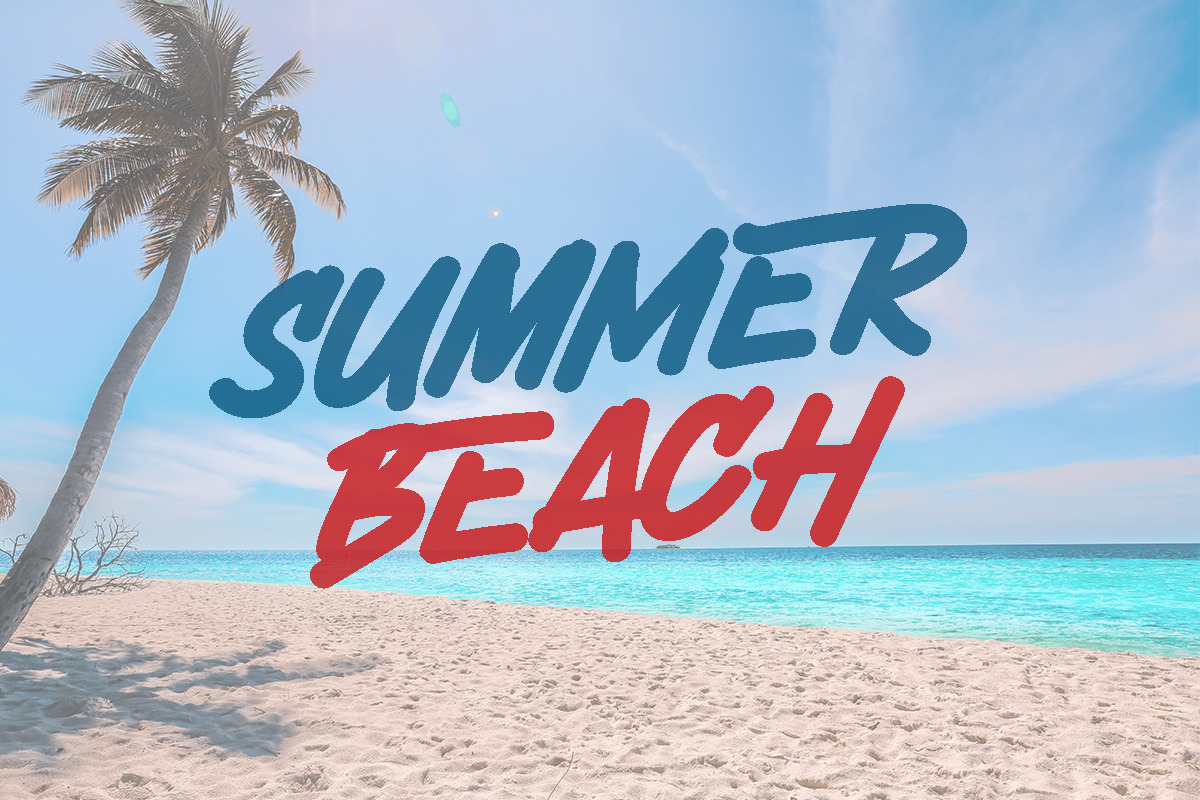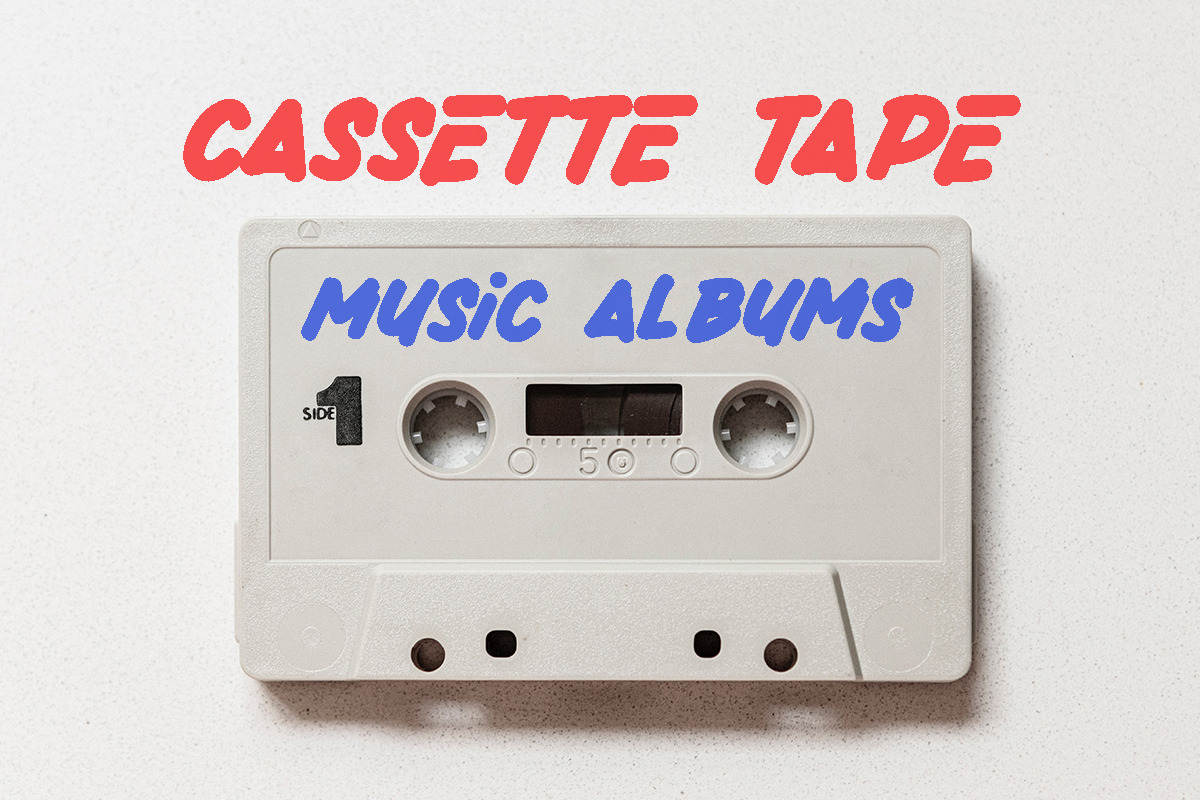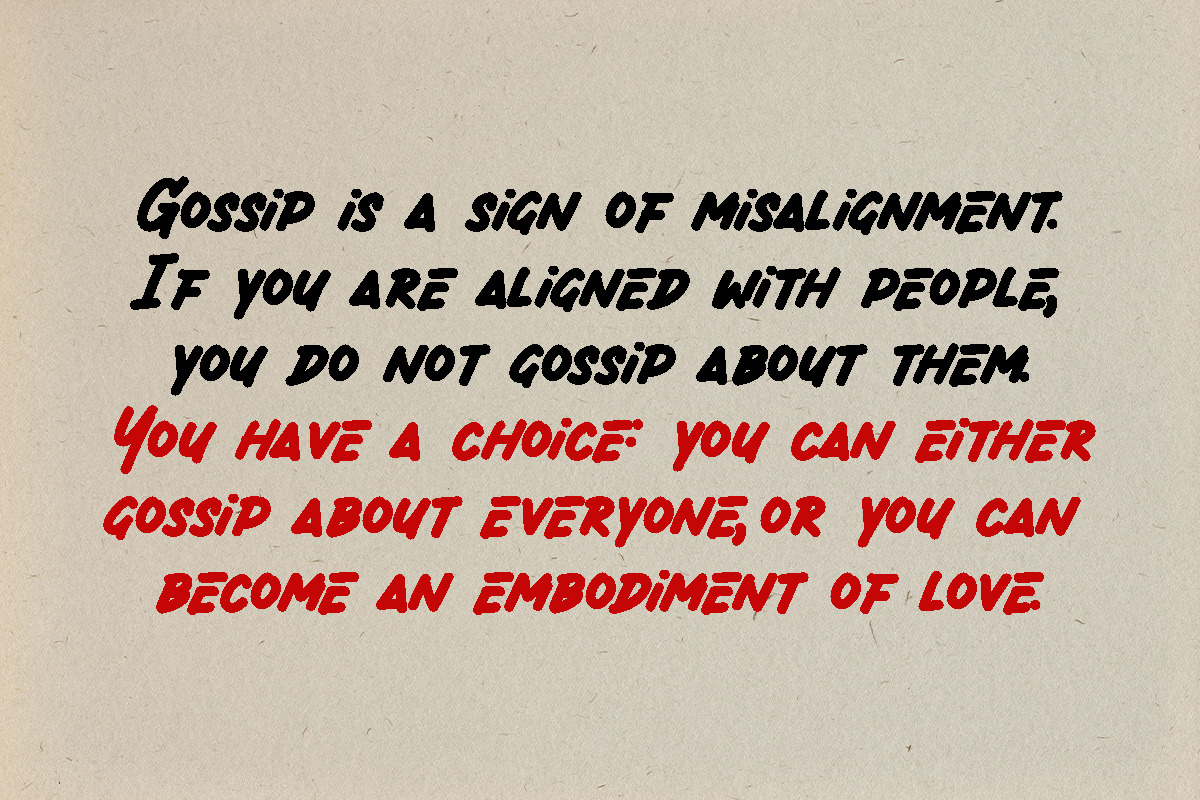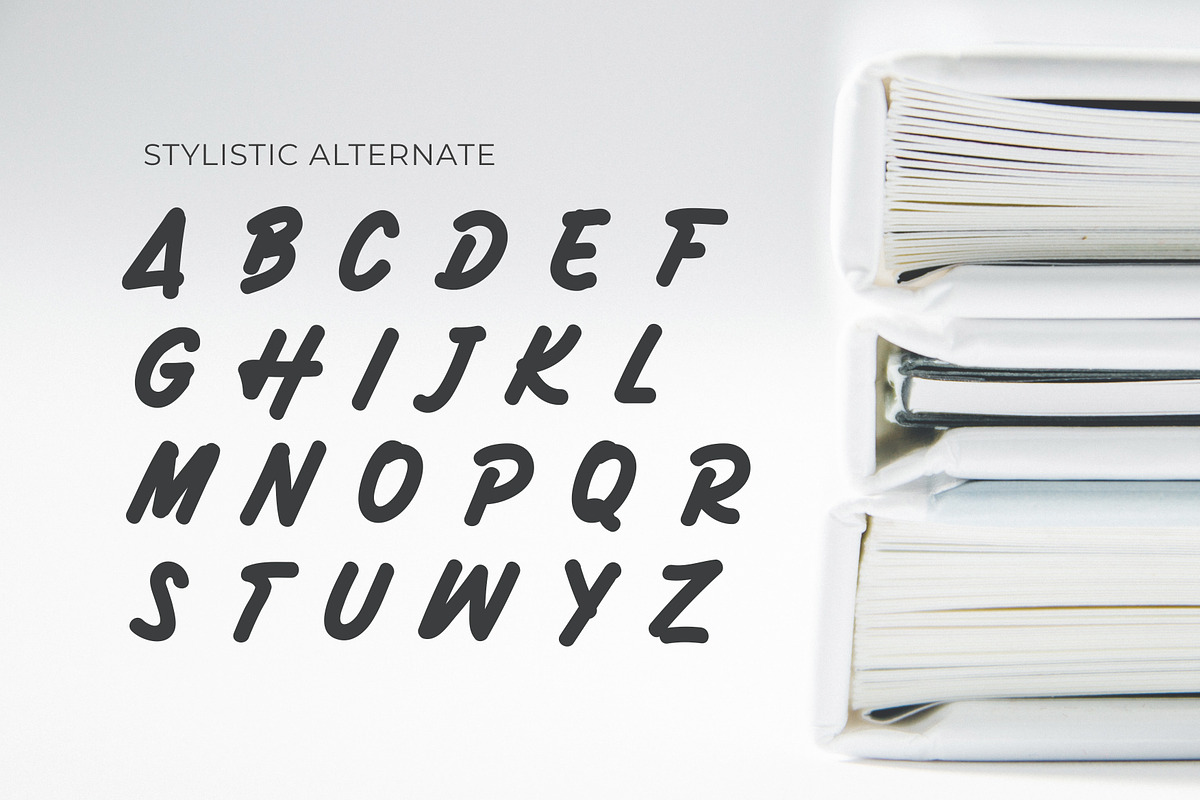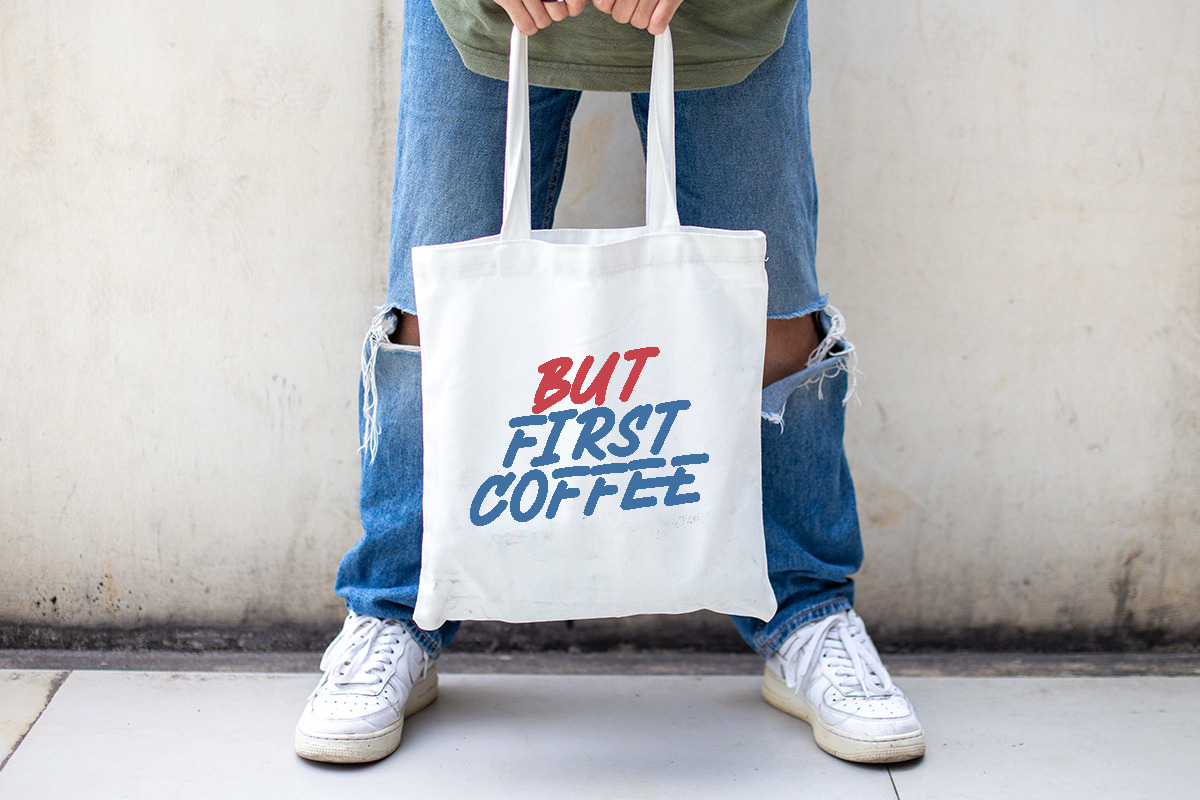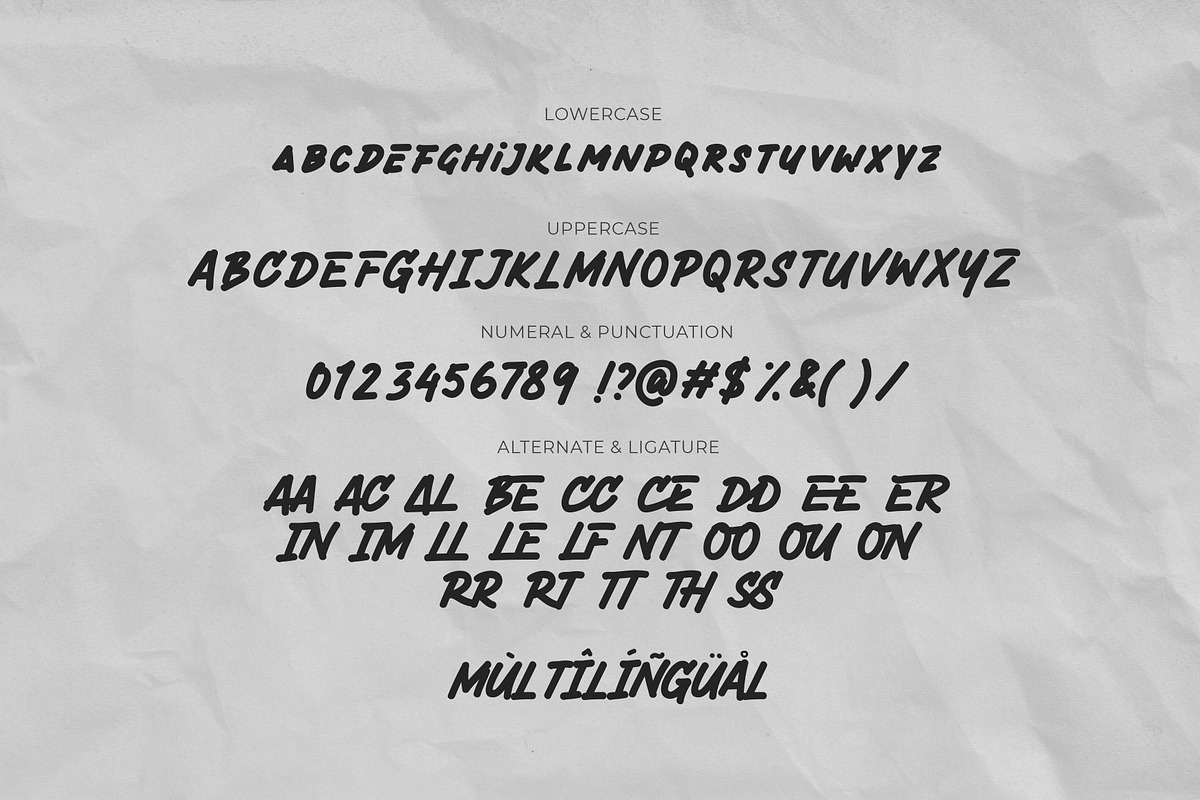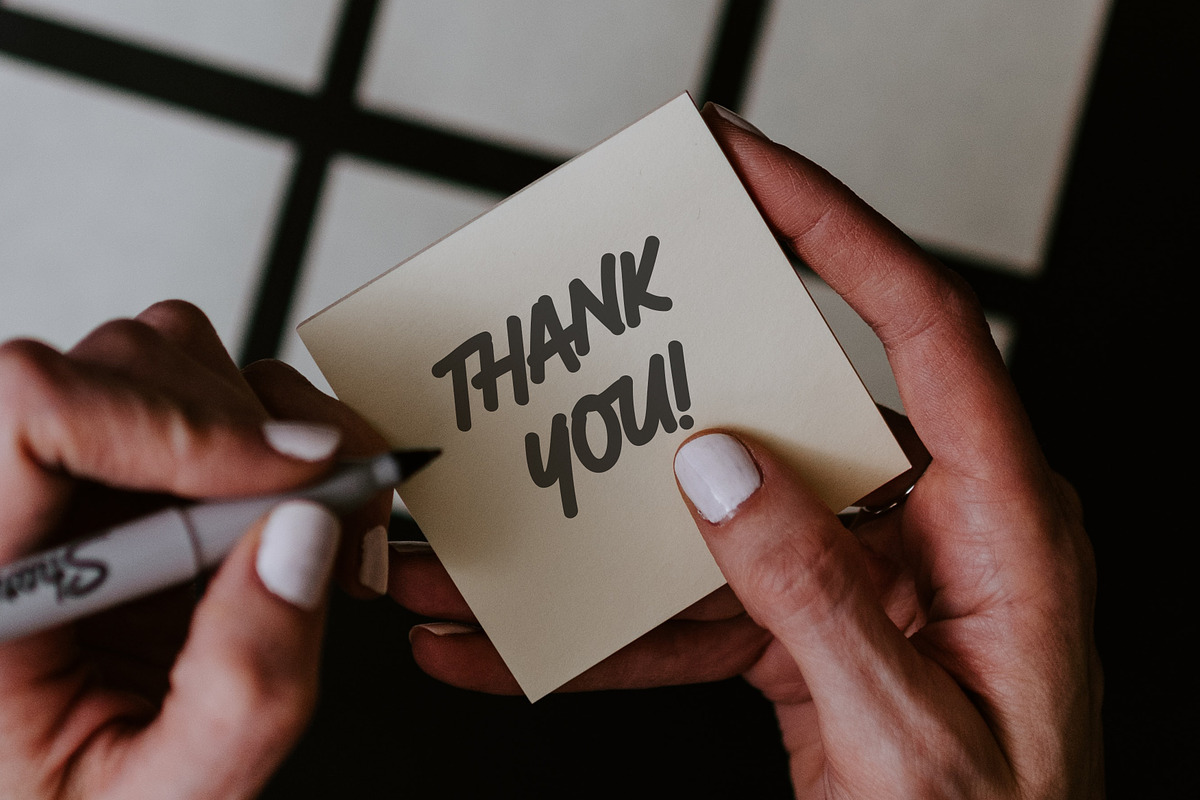
Active Marker
Active Marker is inspired by the idea of handwritten chalkboard signs in restaurants, bars, shops or on the market. The Idea is looking for a living, authentic marker font with interesting ligatures without the cheap feeling and boring recurring letters.